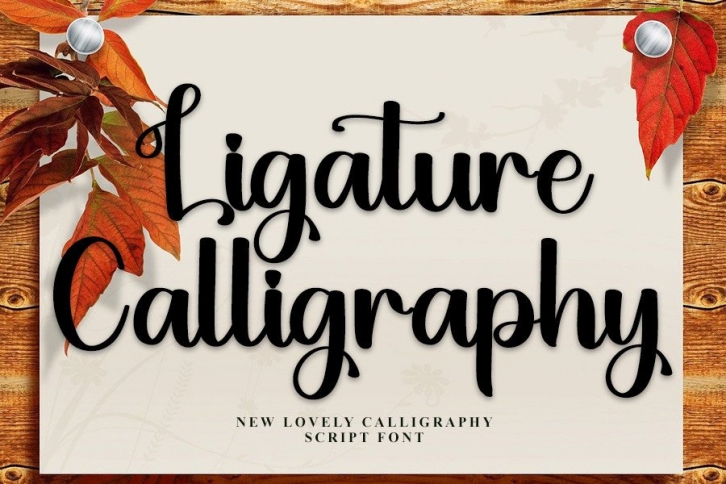
Ligature of Calligraphy is a trendy handwritten font with a contemporary atmosphere and impeccable form, inspired by a timeless classic calligraphy. It will add elegance and class to any of your design projects. This font can be used to write various kinds of products according to the aspect of each need.